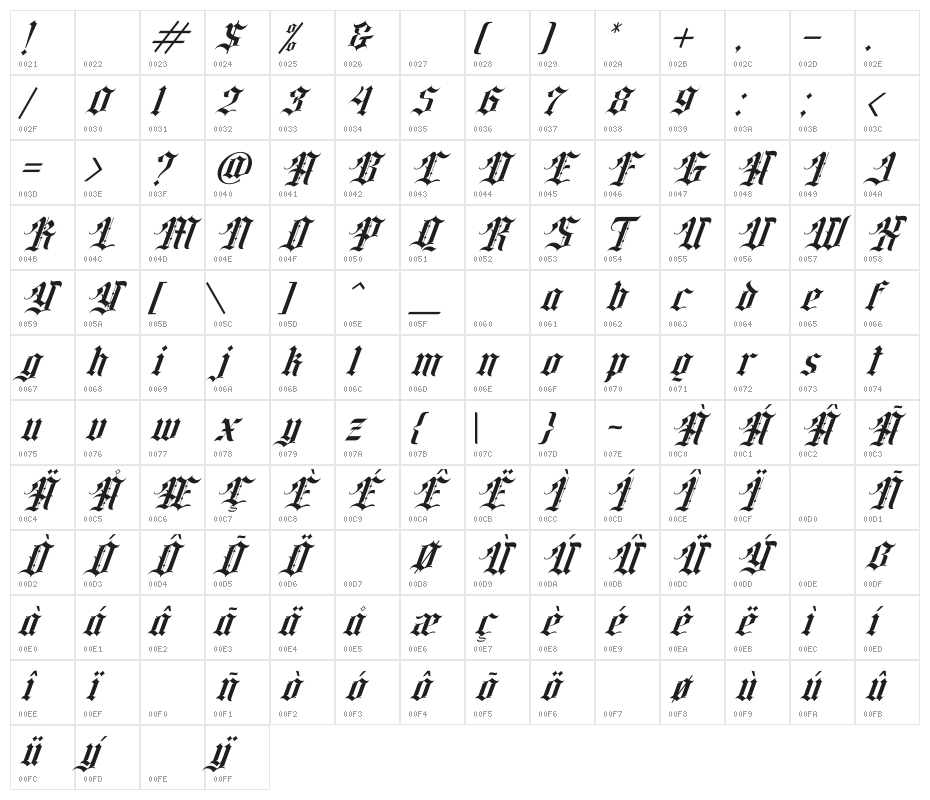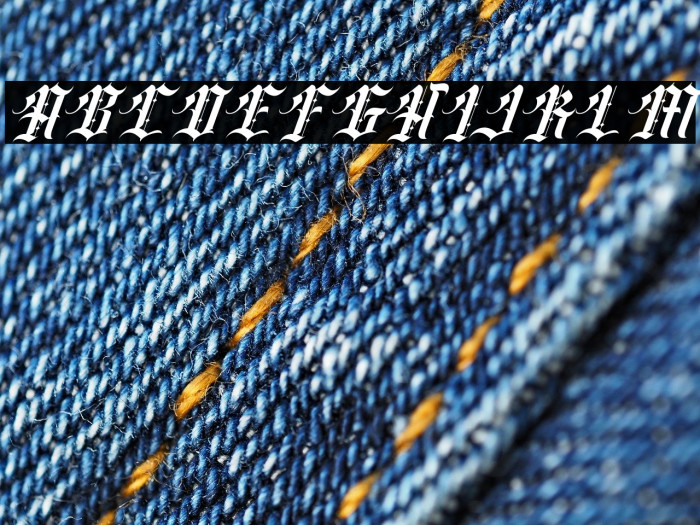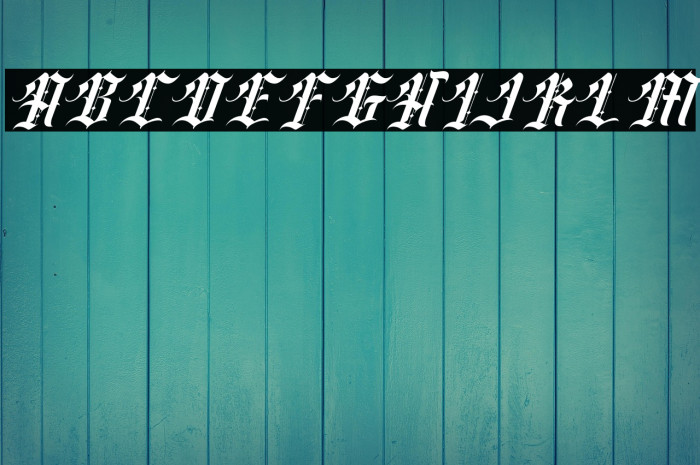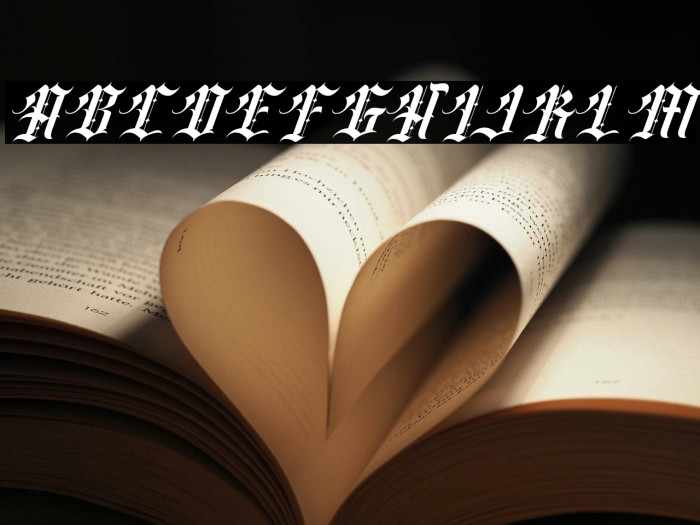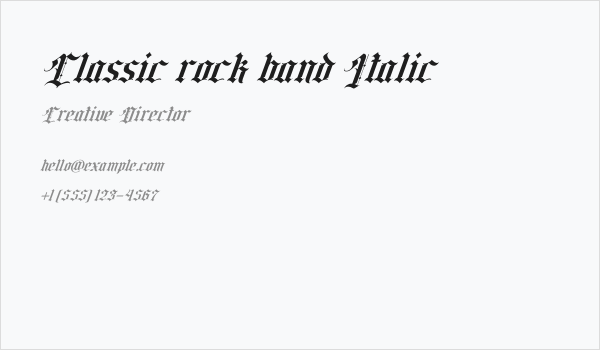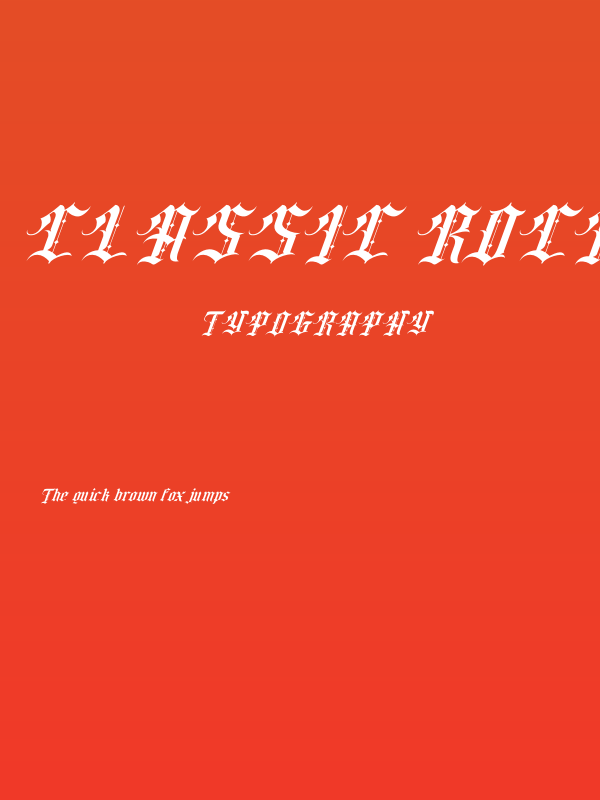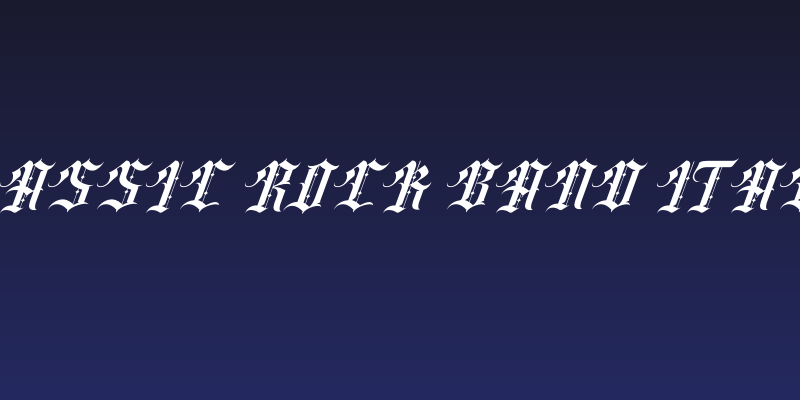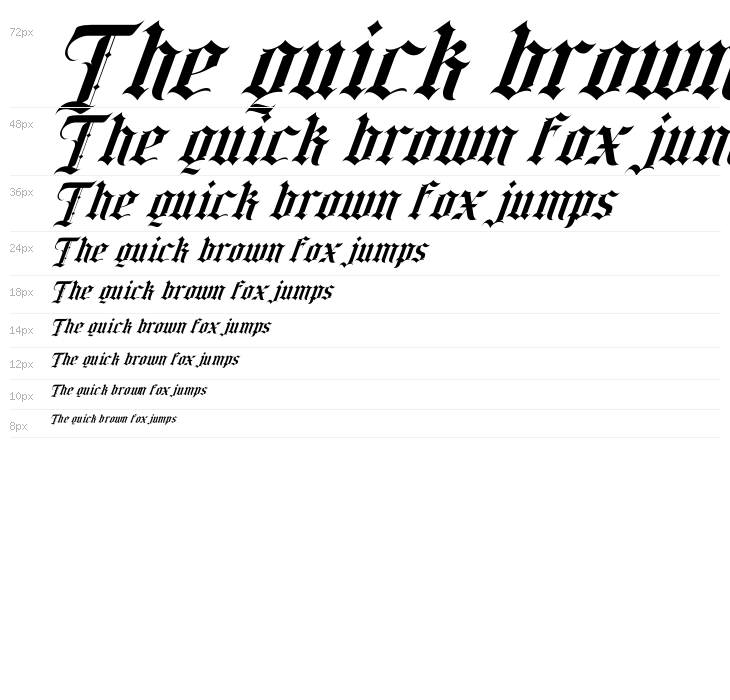
Classic rock band Italic Font
Classic rock band Italic Description
This font exudes a bold and dramatic presence with its intricate, angular strokes and sharp edges. The characters are reminiscent of traditional Gothic or Blackletter styles, featuring elaborate serifs and a distinct medieval flair. The uppercase letters are particularly ornate, with sweeping lines and pointed terminals that give a sense of grandeur and authority. The lowercase letters maintain the same stylistic elements, ensuring consistency throughout the typeface. Numbers and special characters are equally detailed, making this font suitable for projects that require a touch of historical elegance and sophistication.
| Proposed Projects | Ideal for use in branding for rock bands, vintage-themed posters, book covers, or any project seeking a historical or dramatic aesthetic. |